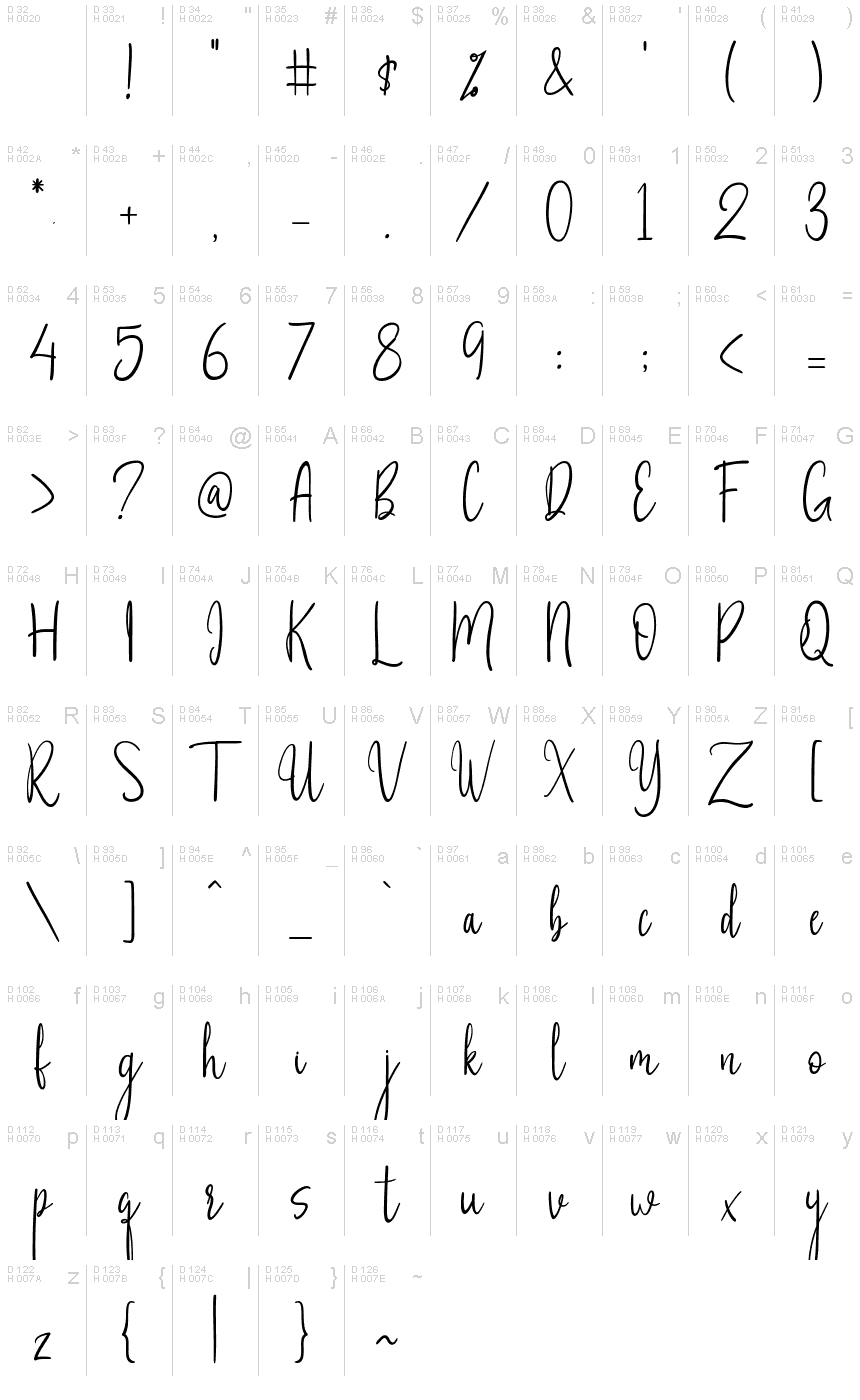
Untidy Typeface Regular
Untidy is a modern handlettering brush style. This script is appear to combine perfectly and allow you to create stunning hand-lettering quick and easy. This font is perfect for modern projects, headings, blogs, logos, brandings, invitations and more !